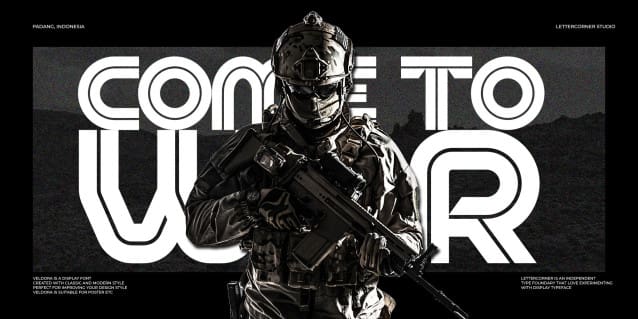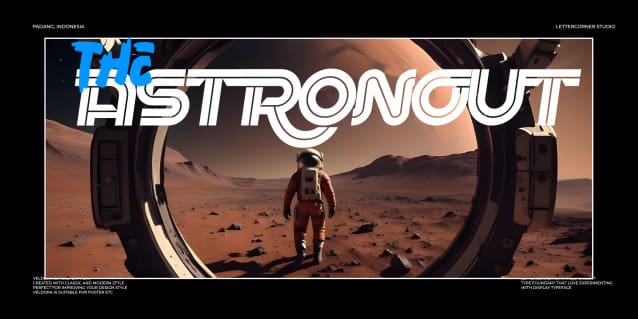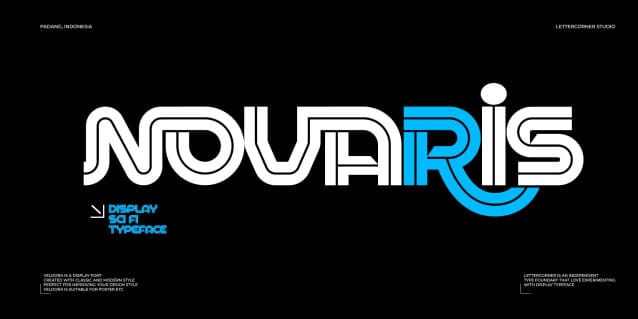
Novaris Display Font
Novaris Display Font is a modern and futuristic font that combines sleek, stylish lines with a touch of boldness. Its design is perfect for projects that want a contemporary and cutting-edge look, making it ideal for tech-related graphics, trendy branding, and eye-catching headlines. The font’s clean and geometric shapes give it a futuristic feel, while still being easy to read.